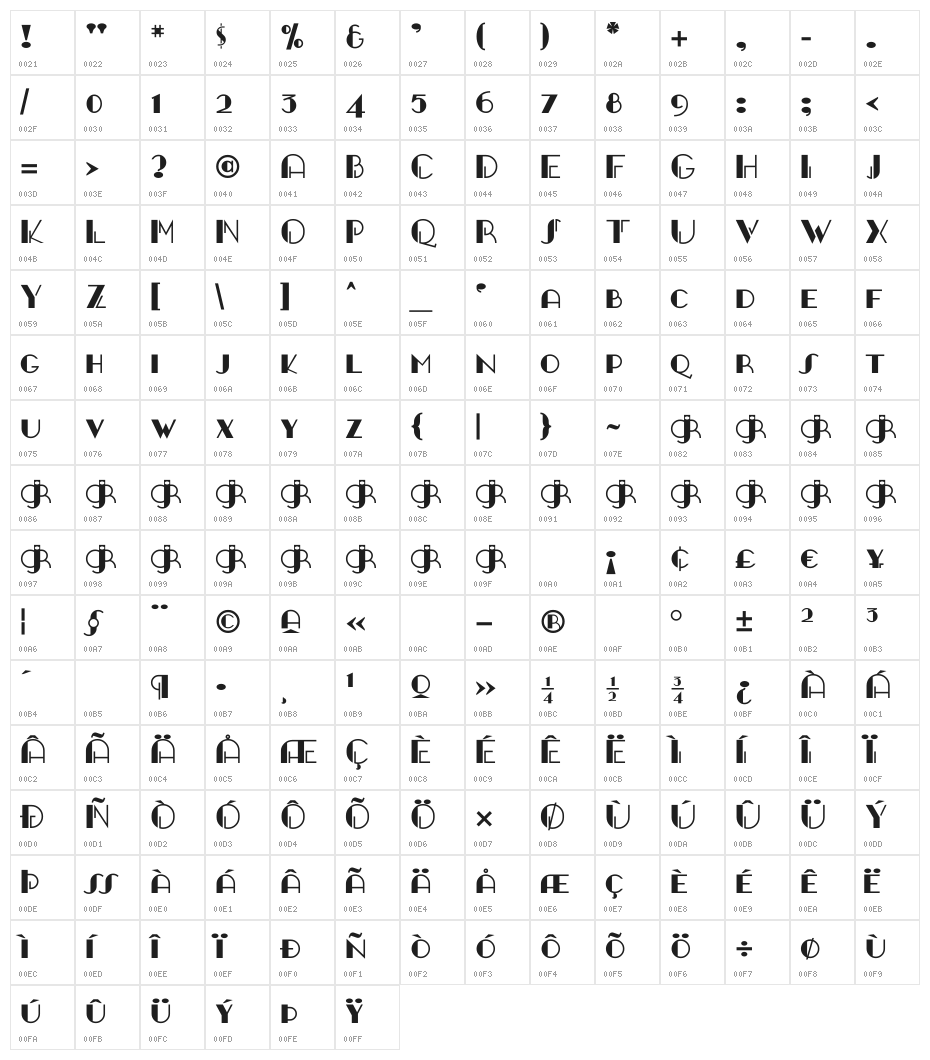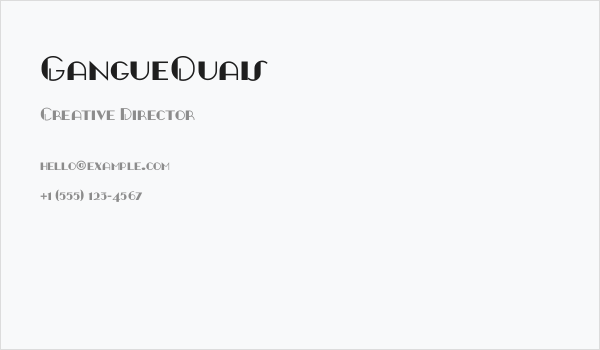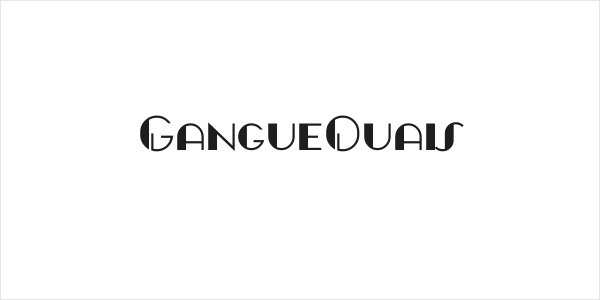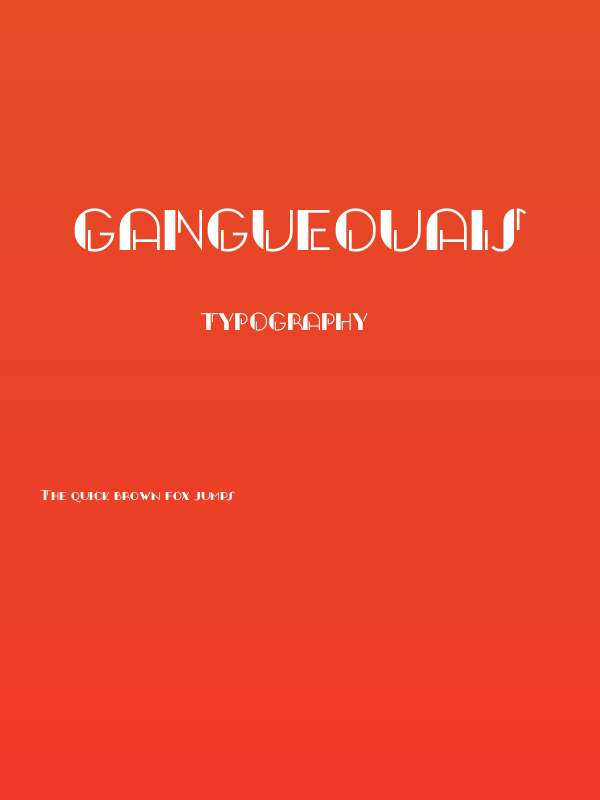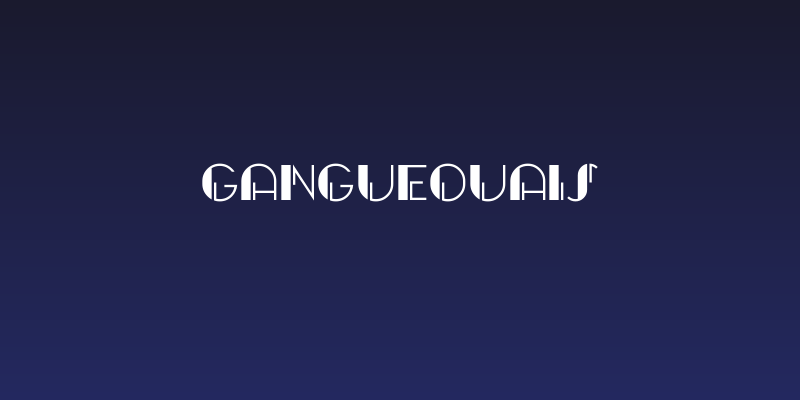
GangueOuais Font
GangueOuais Description
This font features a bold and geometric design with a modern twist. The characters are constructed with a mix of thick and thin strokes, creating a high contrast that draws attention. The uppercase letters have a distinct art deco influence, with sharp angles and clean lines. The lowercase letters maintain the geometric style, offering a cohesive look across the typeface. Numbers are bold and easily readable, while the special characters complement the overall aesthetic with similar angular and geometric elements. This font is ideal for making a strong visual impact.
| Proposed Projects | Ideal for branding, posters, headlines, and any project requiring a modern, eye-catching typeface. |